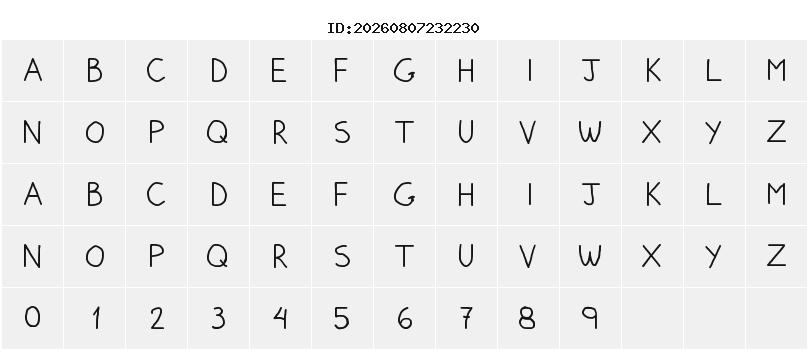
Pumped Up Kicks Preview
• Font Name: Pumped Up Kicks
• Full Font Name: Pumped Up Kicks
• Designer: catherine
About Pumped Up Kicks.ttf
Pumped Up Kicks.ttf is a modern, elegant sans-serif font designed for ultimate readability and visual harmony. Perfect for branding, headlines, web design, and print materials.